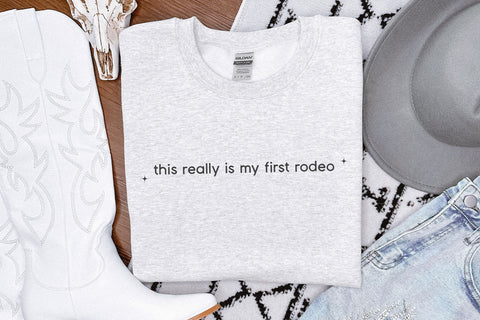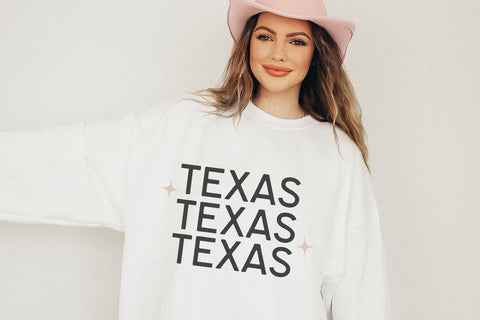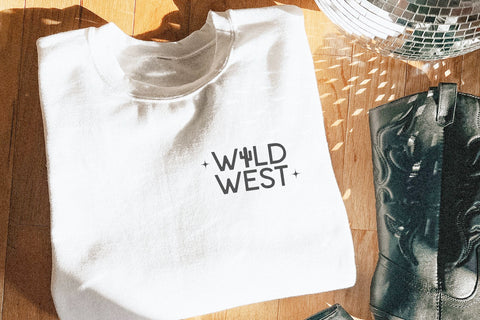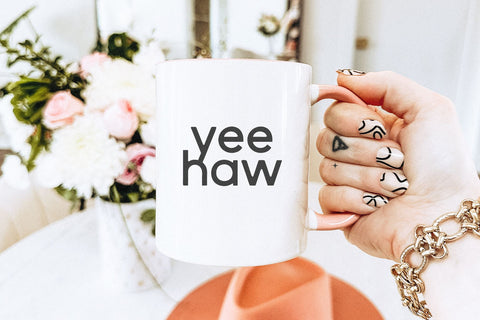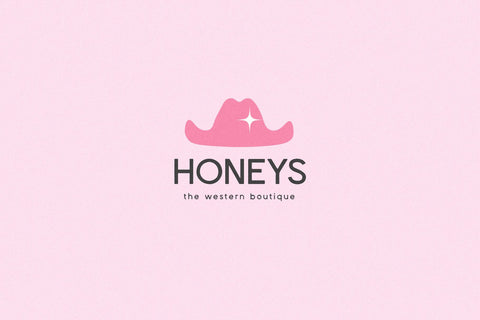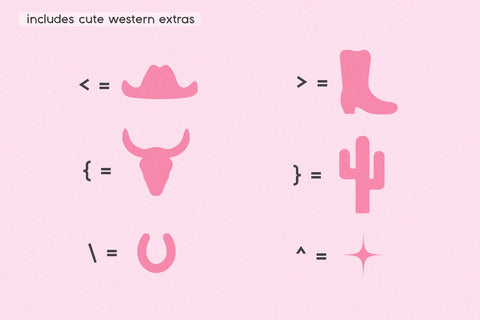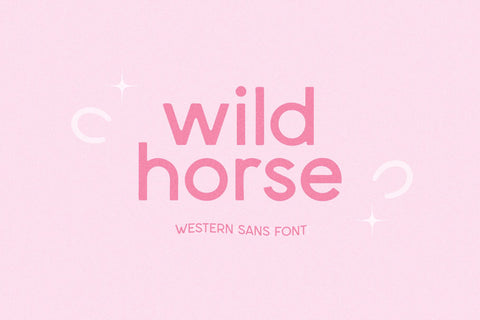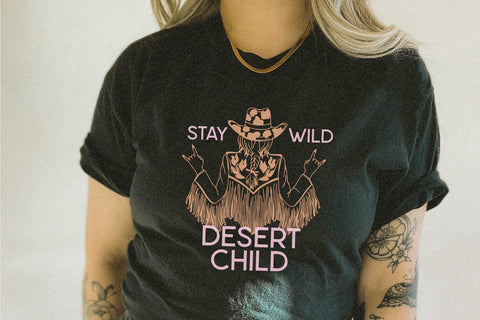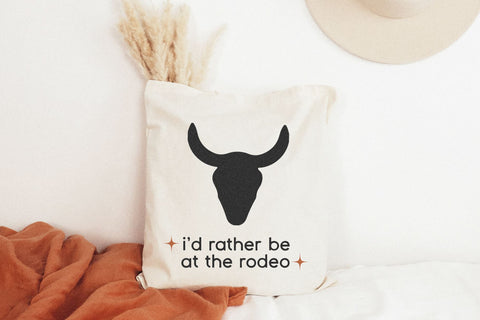
Wild Horse - Western Sans Font
Wild Horse is a soft sans font with a few western extras!
This font is perfect for: cricut projects, vinyl, svg designs, logos, western shirts, greeting cards, posters, social media, quotes and more!